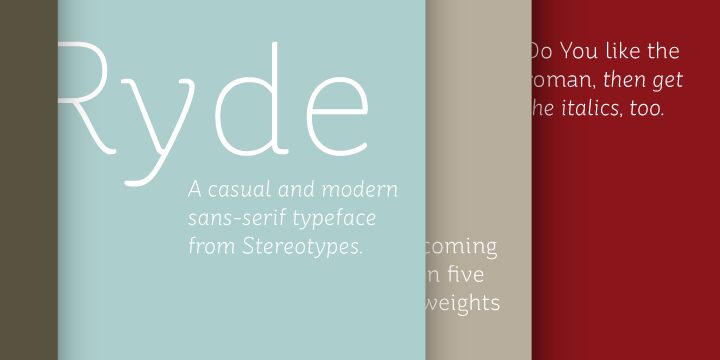
StRyde by Sascha Timplan of Stereotypes.de is a free rounded sans serif with a loose, lively silhouette. Smooth curves and softly finished strokes give the letters an informal character, and their varied proportions keep the line from feeling mechanical.
It can create a relaxed, hand-drawn identity for cafe branding and casual packaging. The open construction also suits magazine covers. In children's publishing and event posters, its simple curves can echo friendly illustrations and uncomplicated graphic shapes.